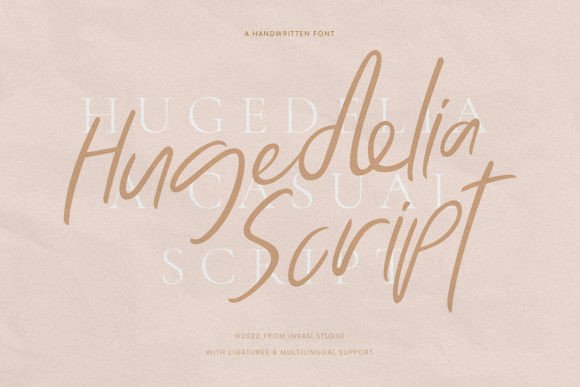
Feast your eyes on Hugedelia Font, the trailblazing script font that's poised to revolutionize your creative endeavors! This captivating handwritten brush font boasts an aura of sophistication and charm, making it the perfect choice for those seeking to make a lasting impression. With its meticulously crafted strokes and dynamic flow, Hugedelia Font possesses an innate ability to elevate your designs to new heights, leaving your audience spellbound.
Immerse yourself in the limitless possibilities that Hugedelia Font presents. Its versatility knows no bounds, seamlessly adapting to a myriad of projects, from captivating campaign posters that command attention to enchanting invitations that exude elegance. Unleash your creativity and let Hugedelia Font guide you towards design excellence.
As a PUA encoded font, Hugedelia Font grants you effortless access to a treasure trove of glyphs and swashes, empowering you to unleash your imagination and craft designs that captivate and inspire. With just a few clicks, you can incorporate intricate embellishments and flourishes that add depth and dimension to your creations. The possibilities are endless, limited only by the boundaries of your imagination.
Don't settle for ordinary fonts that blend into the background. Embrace the power of Hugedelia Font and watch as your designs transform into captivating masterpieces. Its unique character and undeniable charm will leave an indelible mark on your audience, ensuring that your message is not just heard, but felt.
Whether you're a seasoned designer seeking to expand your font collection or a budding creative looking to make a statement, Hugedelia Font is the perfect companion for your design journey. Its user-friendly nature and boundless versatility make it accessible to designers of all skill levels. Embrace the transformative power of Hugedelia Font today and embark on a creative odyssey that will leave you breathless.